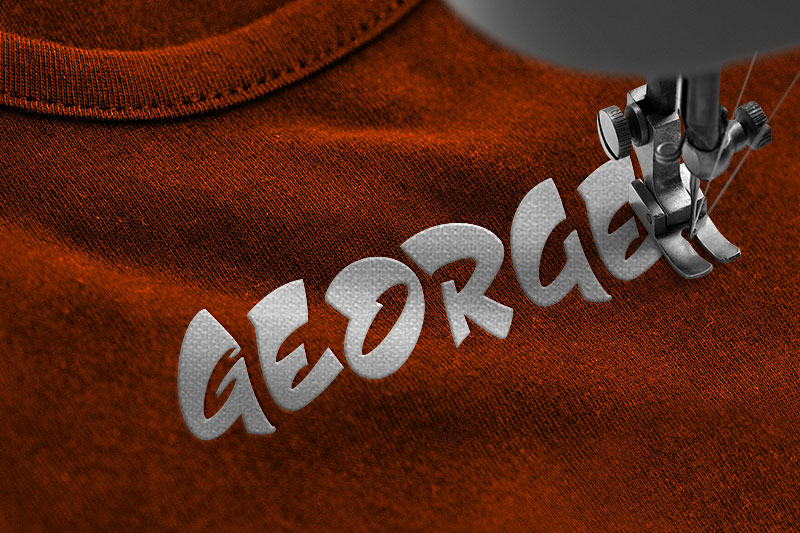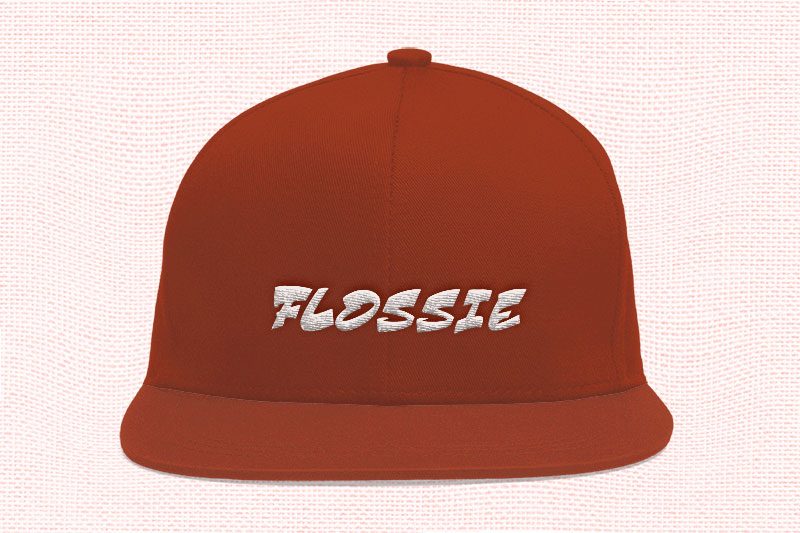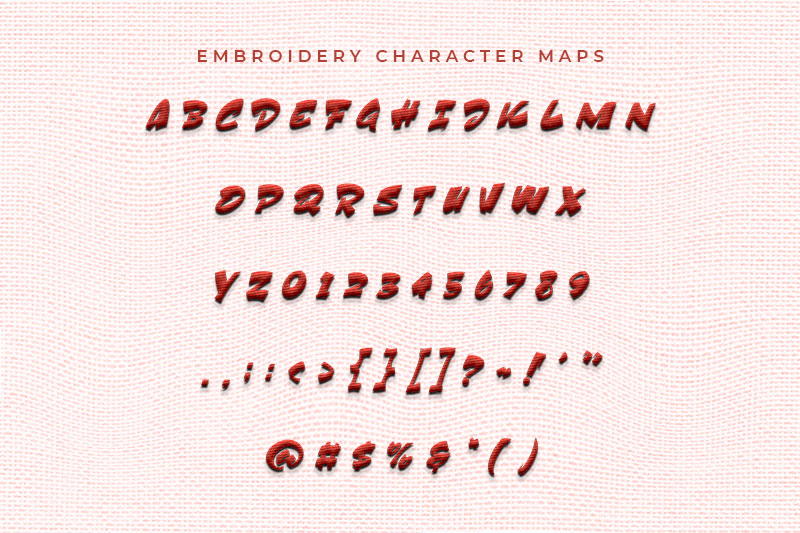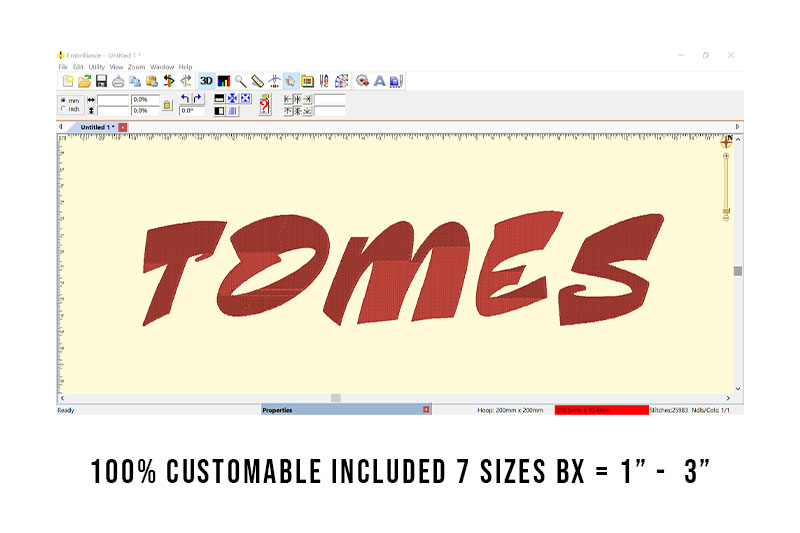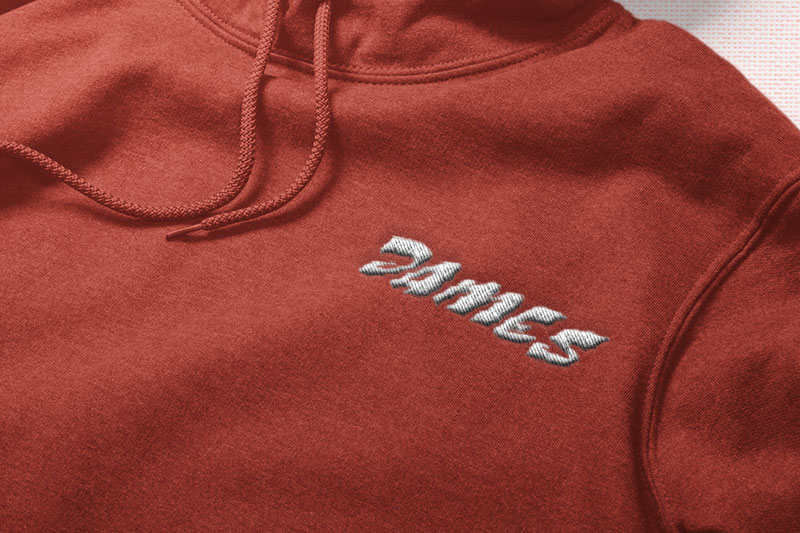
Tomes Embroidery Bx Font
Part of our embroidery font collection, the Tomes Embroidery Bx Font is a modern font with a simple, easy-to-read appearance. A fun typeface that anyone who sees it can easily fall in love with. Clean fonts without any additions, easy to understand, and classified as legible fonts.
Tomes Embroidery Bx Font can use as a digital font and embroidery font. This font can border in t-shirt, hat, shoes, and others. These reasons must be complemented by colors and ornaments that support it.
The digital application of this font is in product advertisements, animated cartoon videos, children's films, and others. It can give an exciting and fun impression to video shows. This is to attract interest in buying products being marketed and watching films that have been shown.